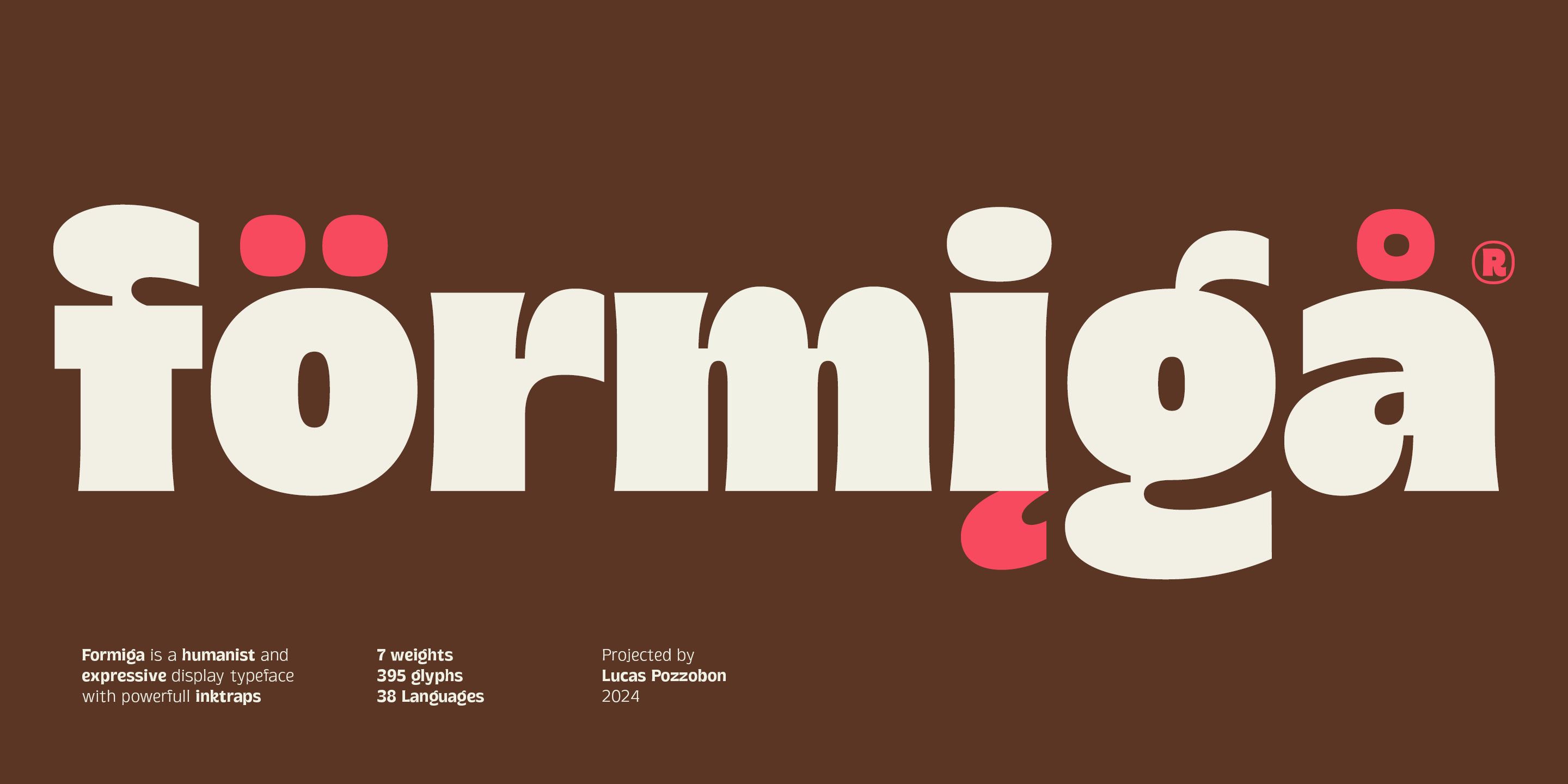
Formiga Font is perfect for teamwork consulting services, collaborative workspace branding, productivity app interfaces, organizational efficiency materials, team building workshop promotions, cooperative business models, social enterprise communications, community organization signage, collective action campaigns, and industriously collaborative marketing communications.
Formiga Font is exciting because it captures the remarkable efficiency and collective strength of ant colonies with its systematically structured letterforms that seem organized with insect-like precision and embody the extraordinary power that emerges when individual efforts combine into perfectly coordinated group achievement. Its collaboratively efficient character design reflects both the systematic organization that enables complex collective tasks and the unwavering dedication that makes certain teams capable of achieving seemingly impossible goals through persistent cooperation, making it perfect for brands celebrating teamwork and organizational excellence.
Formiga Font family includes thin, light, regular, medium, bold, and black weights, each with corresponding italic versions. The font family also features collaborative ornaments, teamwork-inspired ligatures, organizational symbols, and efficiency decorative elements that enhance its systematic aesthetic and team-focused versatility.
This systematically collaborative typeface represents the perfect fusion of organizational efficiency and collective strength. Formiga Font Free Download enables designers to experience its teamwork potential before making a commercial commitment. The font's ability to convey both systematic organization and collaborative power makes it ideal for consulting firms, team-building organizations, and productivity brands targeting businesses and leaders seeking effective teamwork and organizational excellence.
Whether you're developing team consulting identities, creating organizational efficiency materials, or designing collaborative communications, Formiga Font brings an unmistakable sense of systematic teamwork and collective achievement to every project. Its systematically structured character and collaborative heritage create powerful connections that resonate with organizations and teams seeking efficient cooperation and systematic success.
The font's versatility excels in business and organizational environments where teamwork and systematic efficiency are paramount. Its collaborative character makes it particularly effective for consulting firms, team-building companies, productivity platforms, and organizational development specialists seeking to establish effective relationships with businesses and teams who demand systematic cooperation and collaborative excellence.
For designers working on projects requiring genuine teamwork appeal and organizational efficiency, Formiga Font offers an exceptional solution. Its systematically powerful presence and comprehensive collaboration-themed elements provide the tools needed for creating truly effective communications, while its collective strength ensures your designs capture the systematic organization and collaborative achievement that defines the most successful teams and organizational excellence.